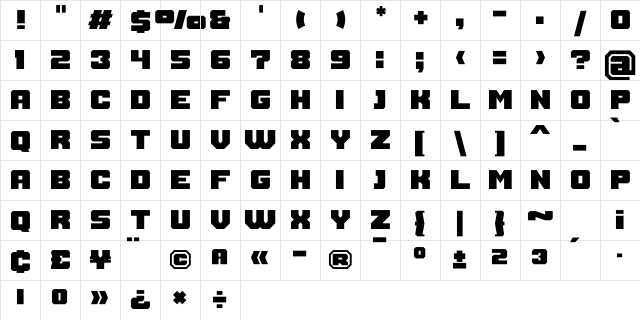
Thuner Regular
| Designer | Ari juanda |
Design Context for Thuner Typeface
Thuner takes a measured approach to typography — its balanced proportions and neutral character make it a reliable workhorse for both digital and print work.